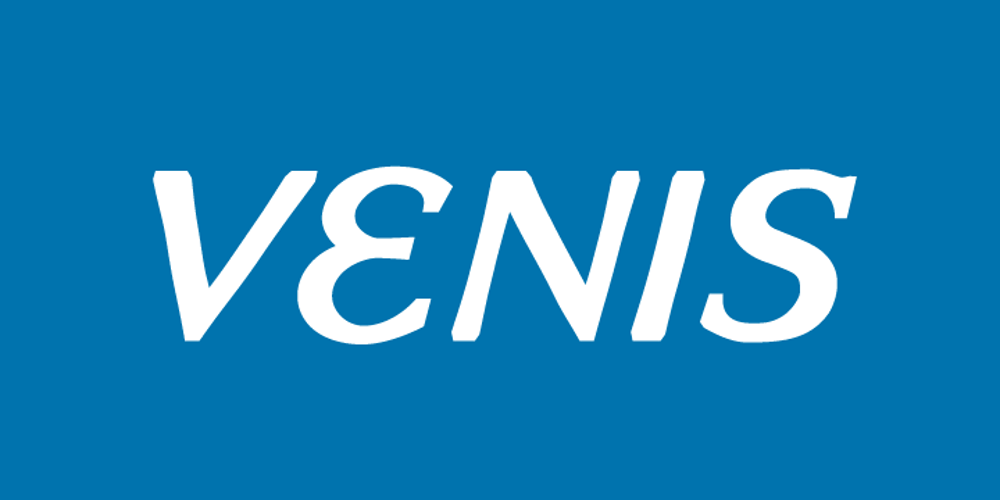
Venis Font Family was designed by Chank Diesel and published by Chank. Venis contains 4 styles and family package options. On first impression, Venis is a traditional text typeface: clean, simple and elegant with nice contrast. On closer inspection, you’ll notice nuances that add charm and wonder, much like its name (rhymes with “tennis”). Is this font a serif or sans serif? Hmmmm, it never really commits. Further design liberties were taken to create unique qualities in its characters, which are best exemplified by the signature lowercase y. This font family is optimized for print, and has worked beautifully for letterpress projects including wedding invitations and birth announcements. Venis will also work well in newsletters, brochures, proposals, magazines, books, and other text-heavy paper products, bringing creative elegance to your designs.